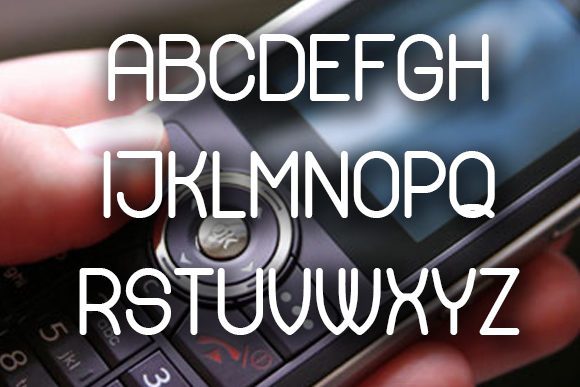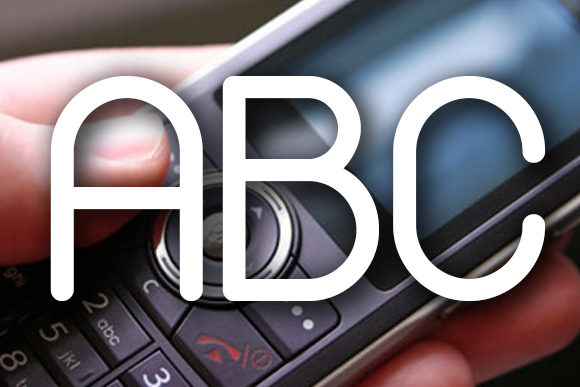
The Perfect Match: Unlocking the Power of Available Font
Do you remember that moment when the perfect font suddenly pops into your mind, and you can’t wait to bring your creative vision to life? It’s a feeling that’s hard to describe, but it’s one that every designer knows all too well. For me, it was the moment I stumbled upon the Available Font, a stunning Sans Serif font that’s been a game-changer in my design journey.
Available Font is more than just a font – it’s a versatile tool that can elevate your posters, banners, headlines, and much more. Its clean lines, modern feel, and excellent readability make it an ideal choice for designers who want to create visually appealing and effective designs. Whether you’re working on a personal project or a professional campaign, the Available Font is a valuable addition to your design arsenal.
Available Font Key Features
- Font Family: Available Font comes in multiple styles including sans-serif, serif, and script fonts, with over 1000 unique glyphs.
- Character Set: The font supports a wide range of languages, including Latin, Cyrillic, Greek, and many Asian languages, covering over 150 scripts and 200 languages.
- Unique Characteristics: Available Font features a unique blend of modern and classic design elements, making it suitable for a wide range of projects, from corporate identities to creative branding.
Available Font Review
I recently had the chance to work with the “Available Font”, and I must say it has its pros and cons. Let’s dive into what works well and what doesn’t.
- Legibility**: The font is highly legible, making it perfect for body text.
- Neutral Style**: The font’s neutral style makes it easy to pair with any design aesthetic.
- Wide Character Set**: The font has a wide character set, making it suitable for various languages.
- Lack of Personality**: The font’s neutral style can make it feel bland and uninteresting.
- Not Ideal for Headlines**: The font’s legibility makes it less suitable for headlines, where a bolder font is often preferred.
Overall, I think “Available Font” is a solid choice for body text, but it may not be the best fit for headlines or designs that require a lot of personality. With its wide character set and neutral style, it’s a good option for projects where legibility is key.
Getting the Most Out of Available Font
- Use Available Font as the primary text in your artwork, experimenting with different colors and layering techniques to achieve a watercolor effect.
- Combine Available Font with hand-drawn illustrations or digital brushstrokes to add texture and depth.
- Pair Available Font with a muted color palette and subtle texture overlays to evoke a sense of softness and delicacy.
- Experiment with bold, bright colors and thick brushstrokes to create a more vibrant and playful atmosphere.
- Choose a striking quote and set it in Available Font, experimenting with different font sizes and colors to emphasize the message.